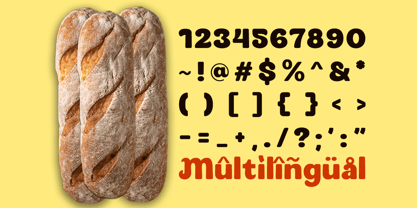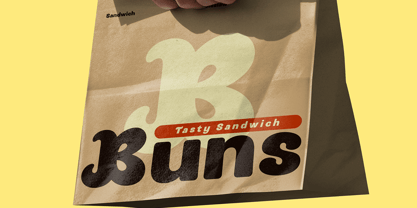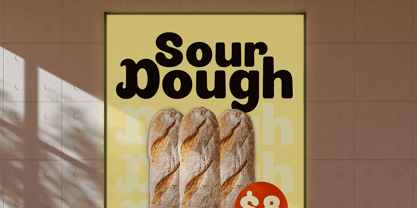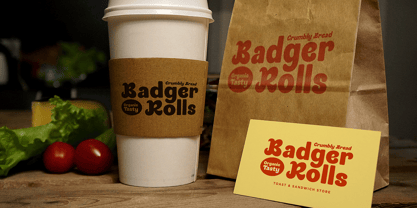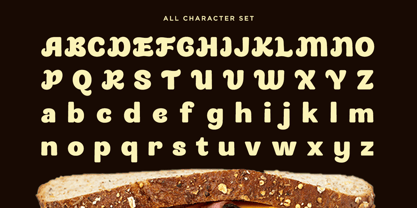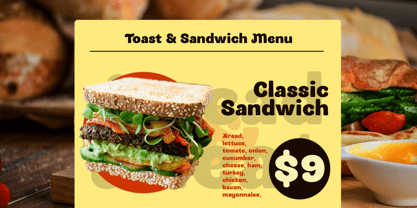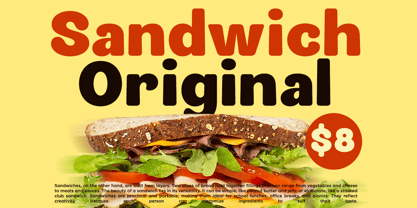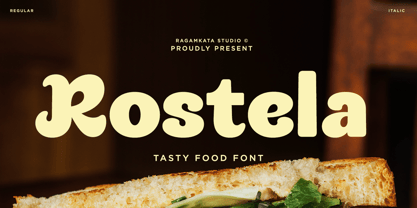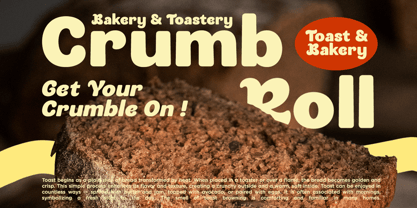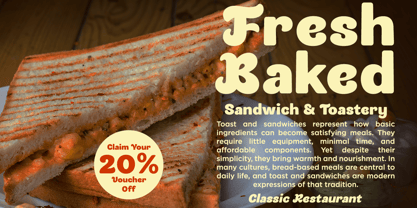
Rostela
by RagamKata
The Rostela Font Family was designed by Yogiswhara Dio Prakoso Riadi and published by RagamKata. Rostela contains 2 styles and family package options. More about this family
Rostela is a playful and tasty display font designed to infuse warmth, flavor, and personality into food-centered design projects. Featuring soft curves, friendly proportions, and a deliciously bold character, Rostela creates an inviting and mouth-watering visual tone that captivates audiences at first glance. This font effectively communicates joy, comfort, and irresistible appeal. Tailored specifically for food branding, restaurant identities, cafe logos, menu layouts, packaging, product labels, and culinary social media content, Rostela delivers a strong visual impact while ensuring excellent readability. Its rounded shapes and balanced weight provide a natural charm that shines across both print and digital platforms, from menus and posters to Instagram posts and packaging designs. Ideal for restaurants, cafes, bakeries, food trucks, snack brands, beverage labels, dessert shops, and lifestyle branding, Rostela elevates your food visuals with a bold yet friendly personality. Whether you're crafting a complete brand identity or designing promotional campaigns, Rostela adds flavor, warmth, and professional polish to every layout. Thank You! Ragamkata